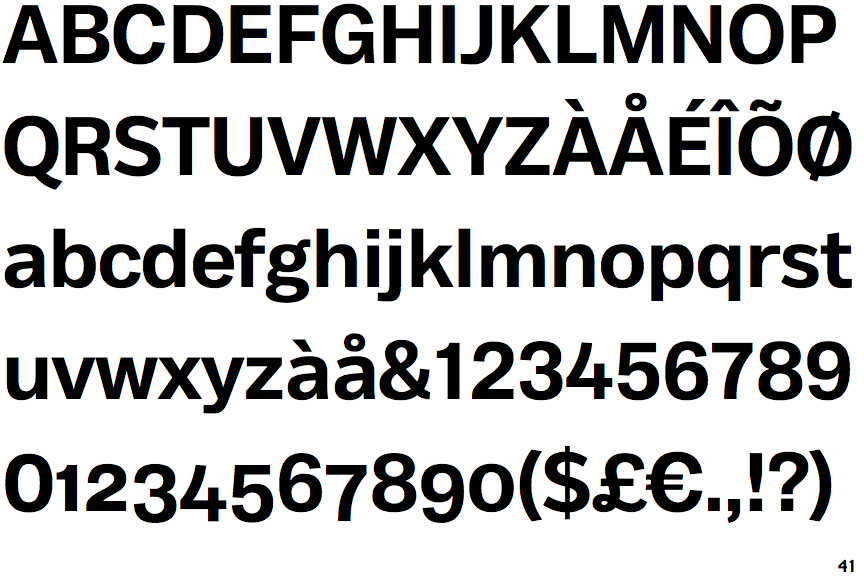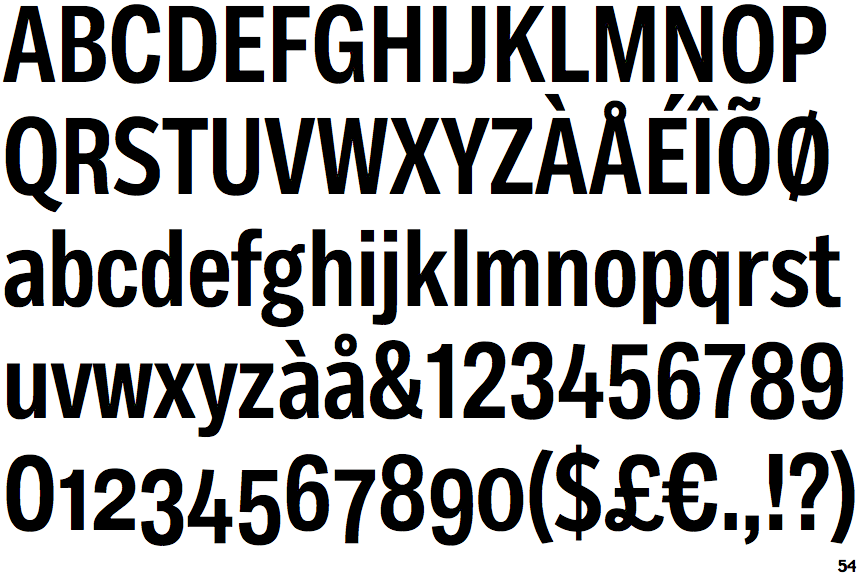
Body Text Fonts. Cards and invitations where the text is set in short lines with extra line spacing. Avoid script or handwriting typefaces as body text fonts.
When choosing a proper body text font, choose the ones that will suit your publication. The following is a type family of 64 fonts. The default body text style in a blank document/normal.dotm might be different on your computer.
The Immortel Family Of Serif Typefaces Comprises Four Variants (Infra, Colera, Vena, And Acedia), All Designed With Multiplexed Set Widths To Be Interchangeable Without Causing Text To Reflow.
When choosing a proper body text font, choose the ones that will suit your publication. You can choose serif fonts that have proven to be a great choice for body text. Body text extra bold font.
When Choosing A Proper Body Text Font, Choose The Ones That Will Suit Your Publication.
For body text, they are almost impossible to read comfortably, if at all. The default body text style in a blank document/normal.dotm might be different on your computer. The following is a type family of 64 fonts.
On The Web, Body Text Can Be In A Sans Serif Or Serif Font.
Some of them are caslon, jenson, chronicle, miller, palatino, garmond and. These are 10 of my favorite typefaces for setting body copy on the web. It is designed by cosimo lorenzo pancini with andrea tartarelli.
Lora Is A Beautiful Serif Font In The Adobe Fonts Collection And Offers A Modern Aesthetic With Moderate Contrast.
Avoid script or handwriting typefaces as body text fonts. Morton is another modern font family that comes with 9 different font weights. Cards and invitations where the text is set in short lines with extra line spacing.
When Choosing Your Body Text Font Make Sure It Has These 4 Main Characteristics: